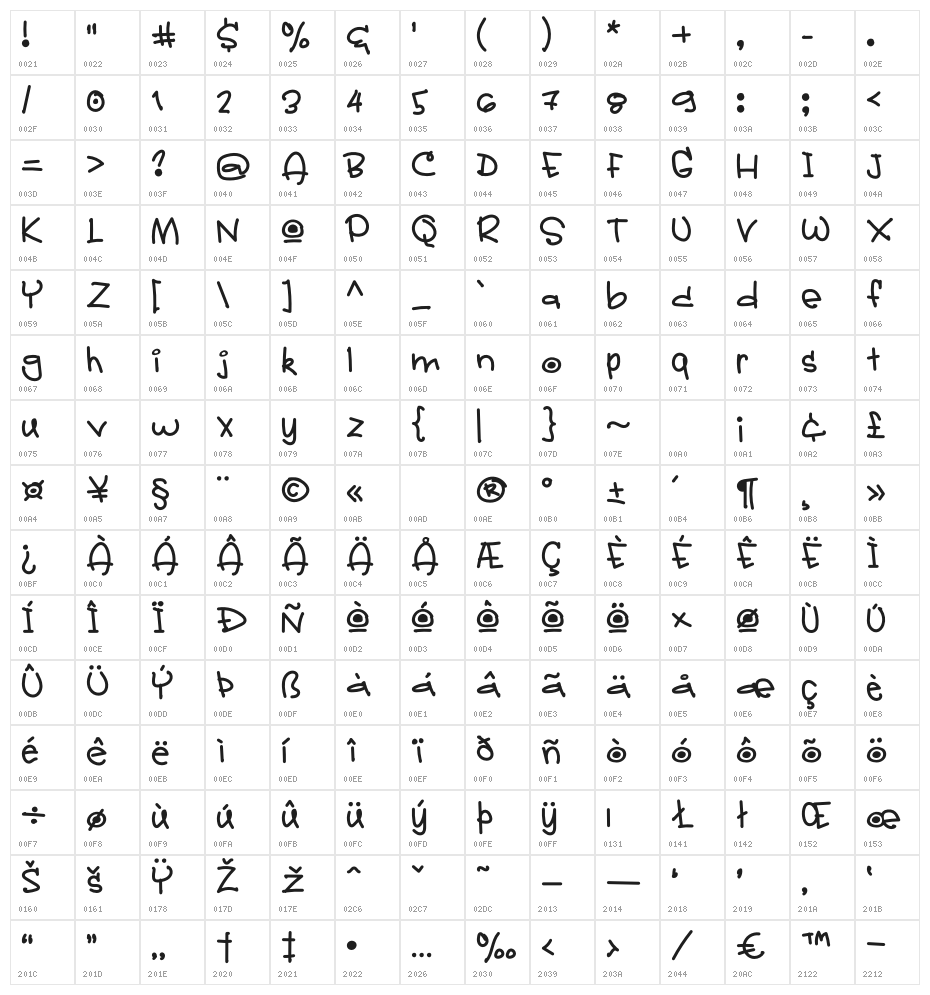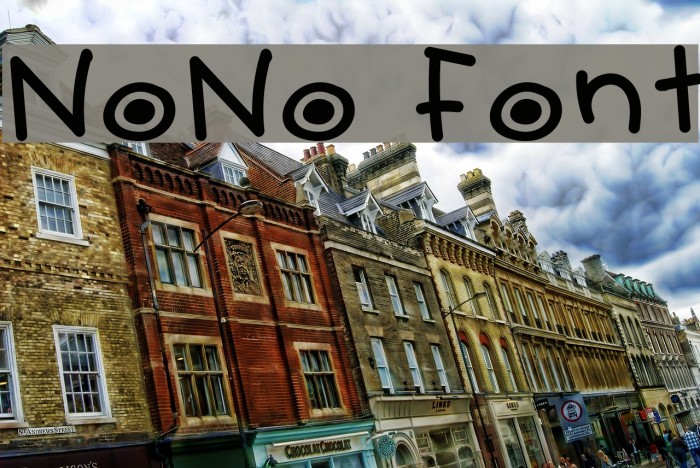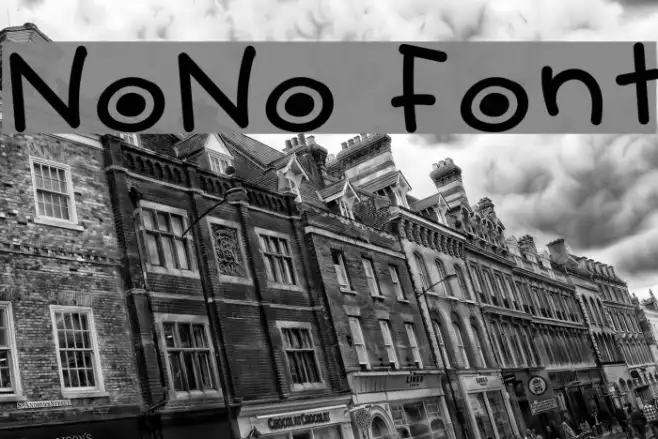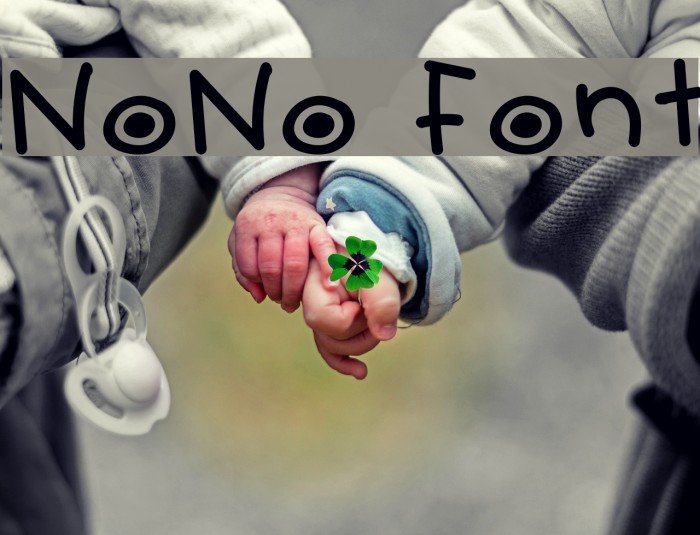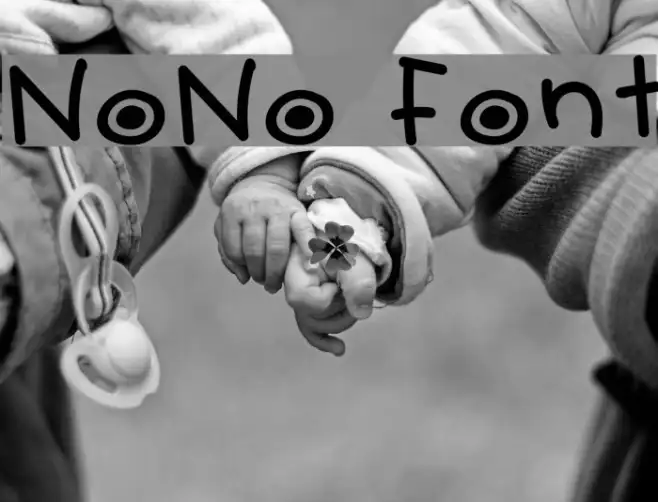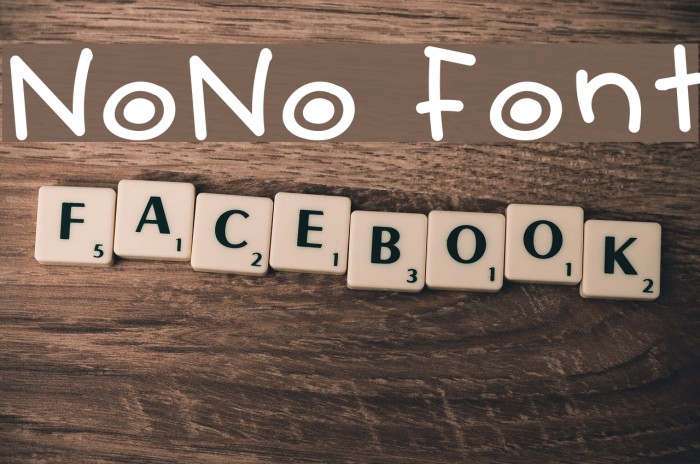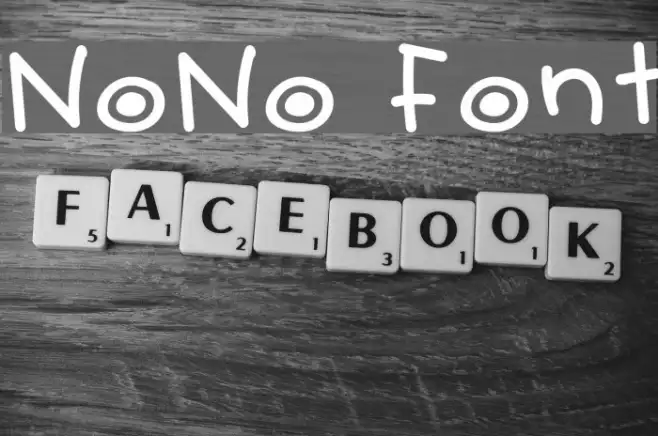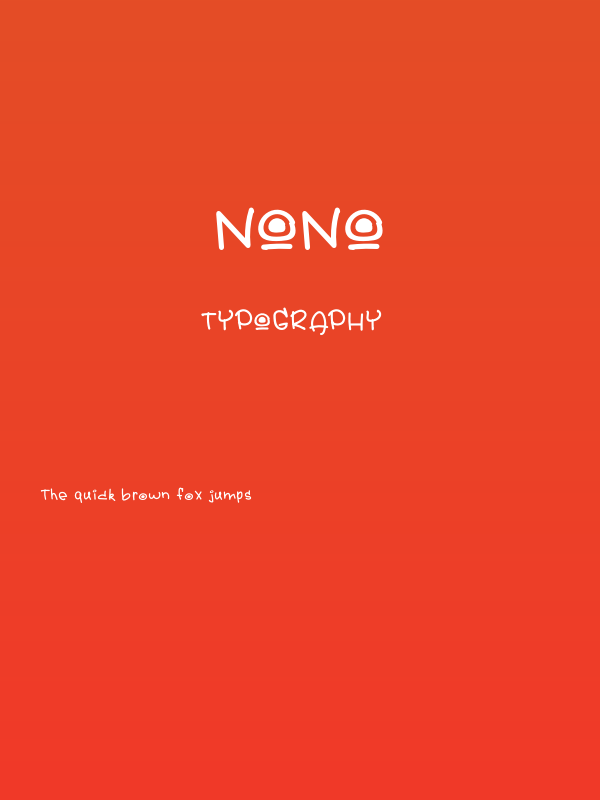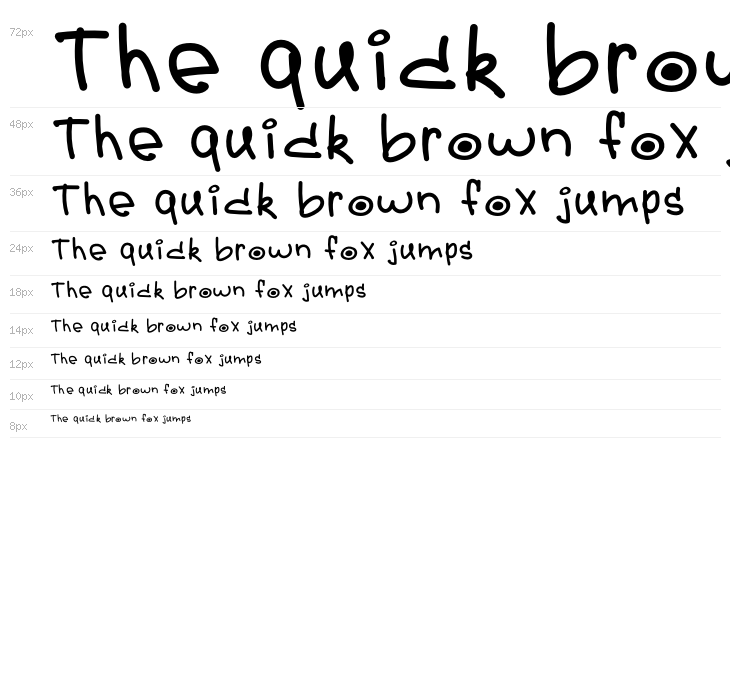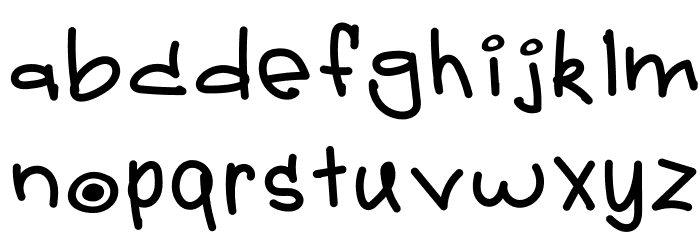
NoNo Font
NoNo Description
This playful and whimsical font features a hand-drawn, casual style with a unique character. Each letter exhibits a slightly irregular shape, adding to its charm and informal appeal. The strokes are bold and rounded, giving the font a friendly and approachable look. The uppercase and lowercase letters maintain a consistent style, with a slight tilt and varying stroke thickness that enhances its handwritten feel. The numerals and special characters follow the same design principles, ensuring a cohesive appearance across all glyphs. This font is perfect for projects that require a personal touch or a fun, lighthearted vibe.